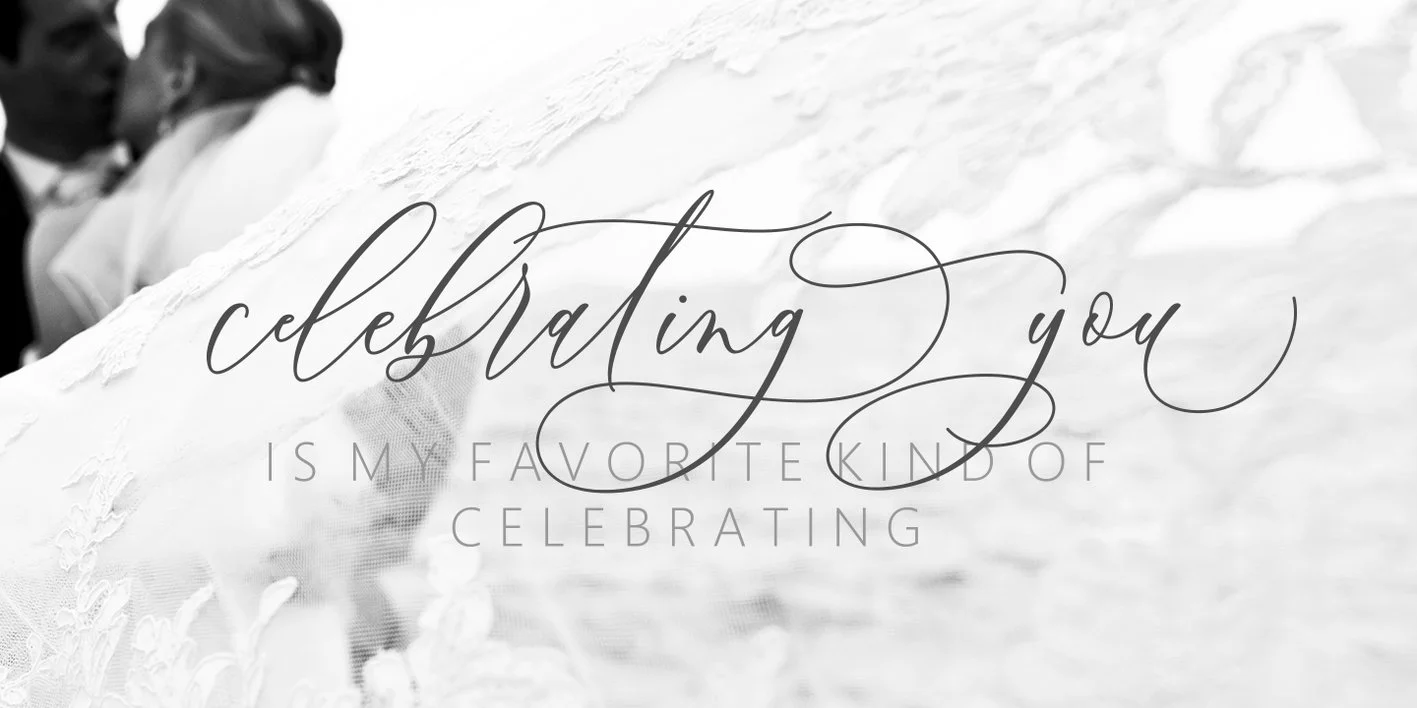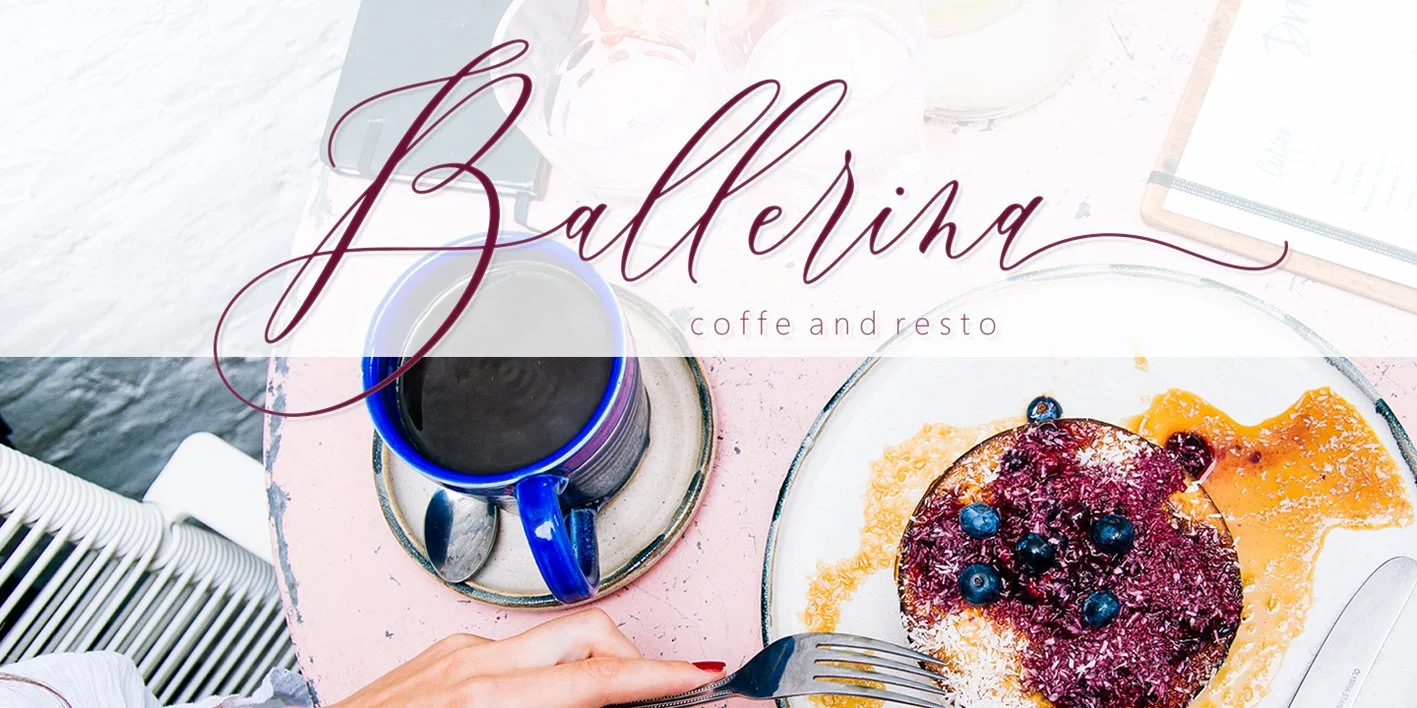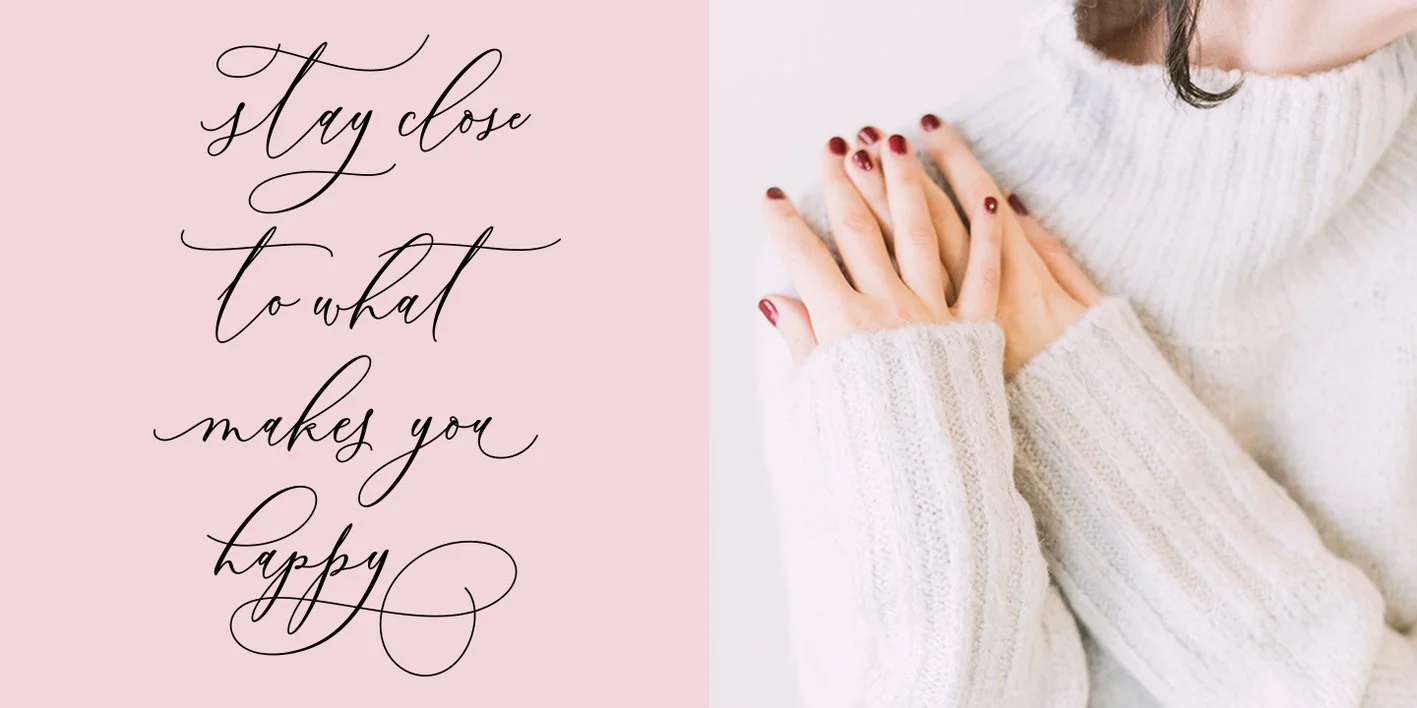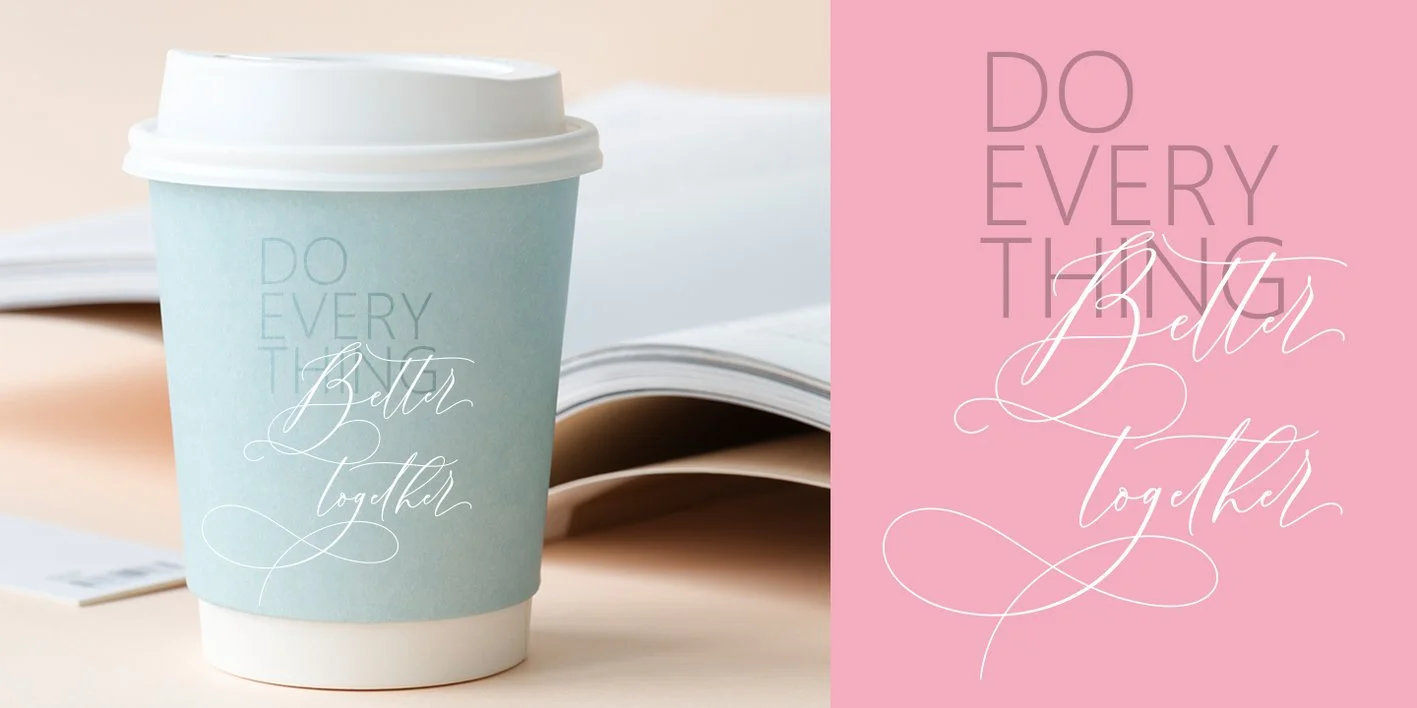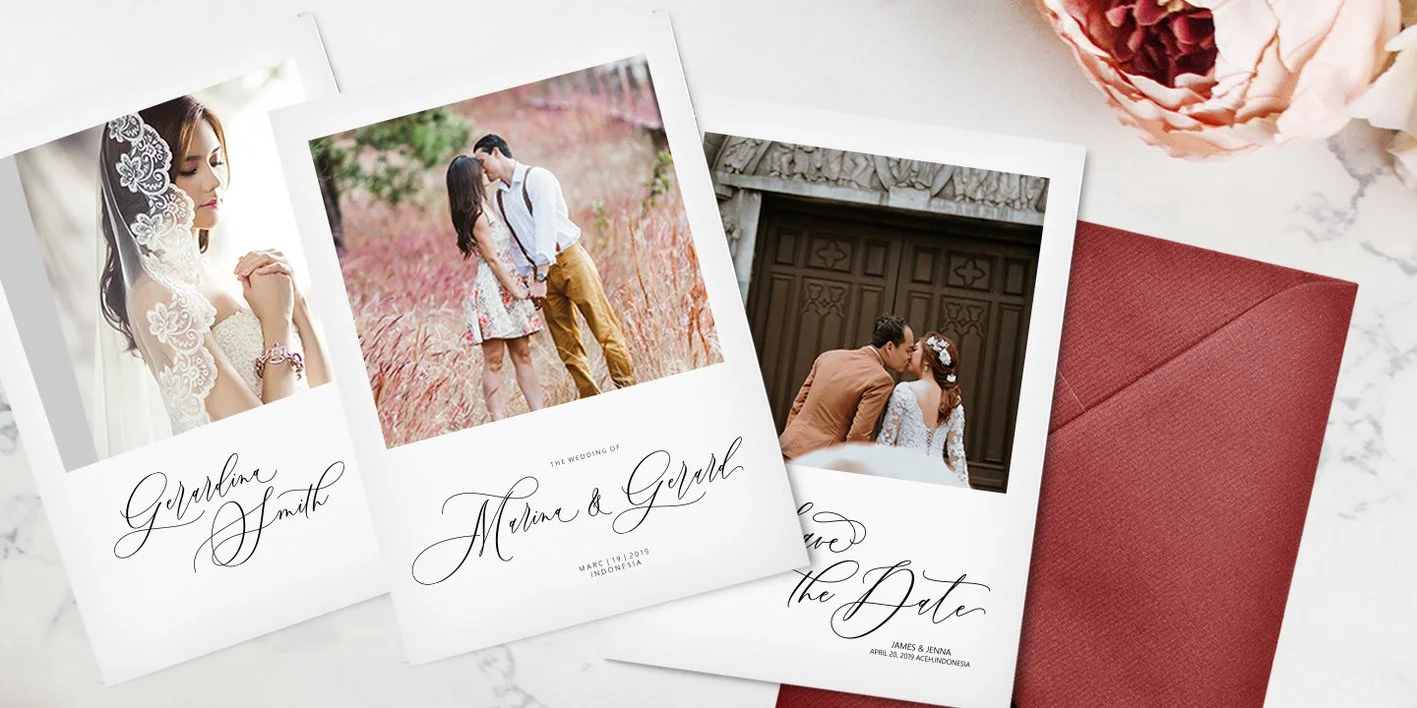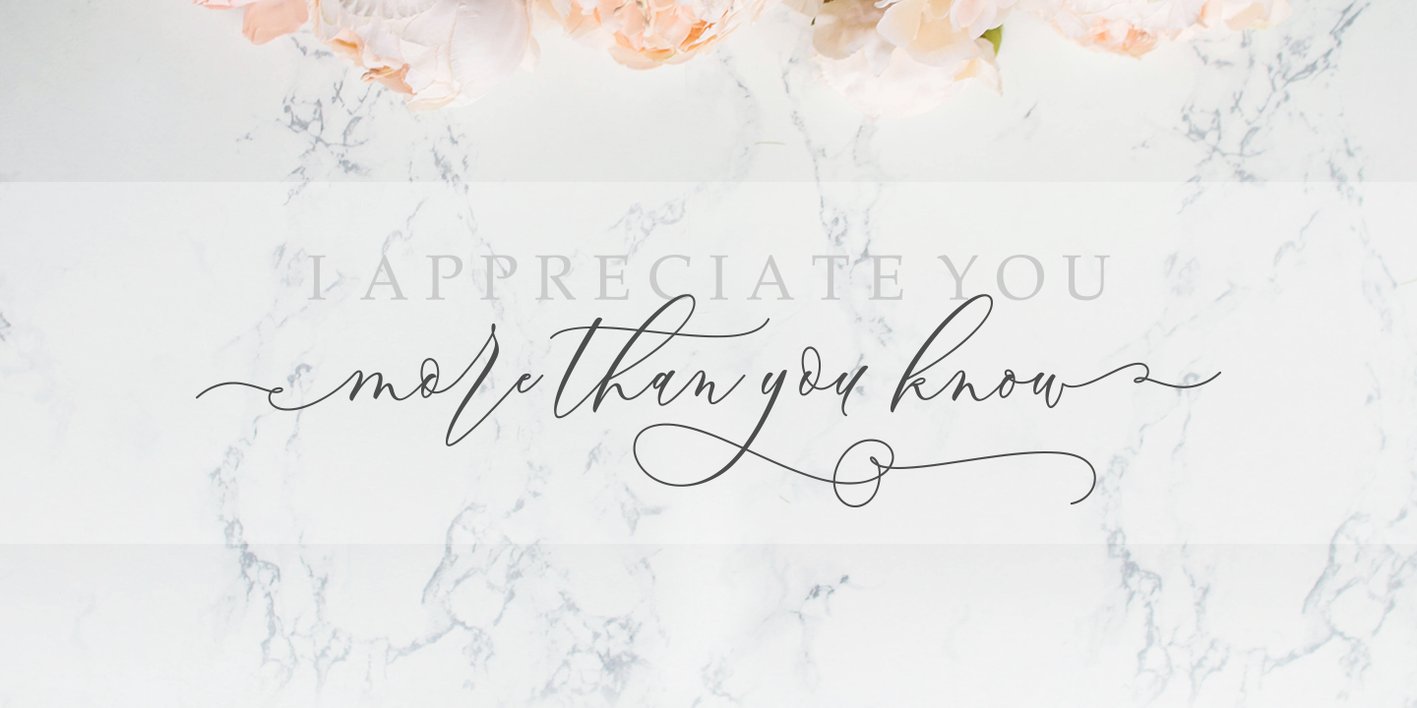
Boutinela Script Font
Boutinela Script Font excels in luxury fashion branding, boutique store signage, high-end cosmetics packaging, elegant jewelry displays, premium spa branding, sophisticated wedding services, designer portfolio presentations, upscale beauty salon logos, exclusive fashion magazines, and chic lifestyle brands. This refined typeface brings Parisian elegance to any sophisticated design project.
Boutinela Script Font is exciting because it captures the essence of French boutique sophistication with its flowing, feminine curves and delicate flourishes that evoke the charm of exclusive Parisian ateliers. Its graceful letterforms create an immediate sense of luxury, intimacy, and artisanal craftsmanship that appeals to discerning clientele.
The Boutinela Script Font family includes Regular weight with stylistic alternates, decorative swashes, elegant ligatures, and ornamental flourishes that enhance the boutique aesthetic, providing designers with versatile tools for creating authentic French-inspired luxury typography compositions.
Boutinela Script Font represents the epitome of boutique elegance, combining French design sensibilities with contemporary functionality. This exceptional typeface has become increasingly popular among luxury retailers and high-end service providers for its ability to communicate exclusivity, craftsmanship, and personal attention through sophisticated handwritten aesthetics.
Fashion designers love Boutinela Script Font for its exceptional ability to convey feminine sophistication and artisanal quality in brand communications. The font's delicate character strokes and refined spacing create an atmosphere of intimate luxury that resonates with customers seeking personalized, high-quality experiences and bespoke services.
The design philosophy behind Boutinela Script Font celebrates the French tradition of artisanal excellence and personal service that defines boutique retail experiences. Creative teams working on luxury fashion, beauty products, or exclusive services find this font particularly effective for establishing emotional connections with sophisticated audiences who value craftsmanship and attention to detail.
Whether used for exclusive fashion collections, luxury beauty products, or bespoke service offerings, Boutinela Script Font delivers the perfect balance of elegance and accessibility. Its boutique appeal and French-inspired sophistication make it an essential choice for brands that celebrate feminine luxury, artisanal quality, and personalized customer experiences.